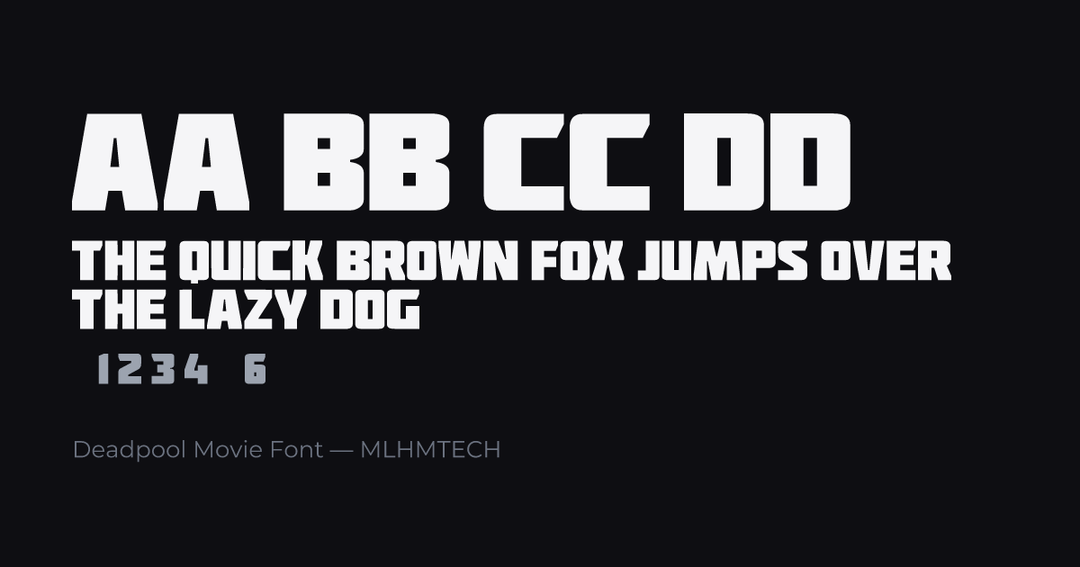
Deadpool Movie Font
A bold, comic-style font inspired by the Deadpool movie. Ideal for titles, posters, and creative projects.
This font captures the irreverent, bold spirit of the Deadpool movie. Its thick strokes and sharp edges make it perfect for action-packed titles, comic book covers, and eye-catching posters.